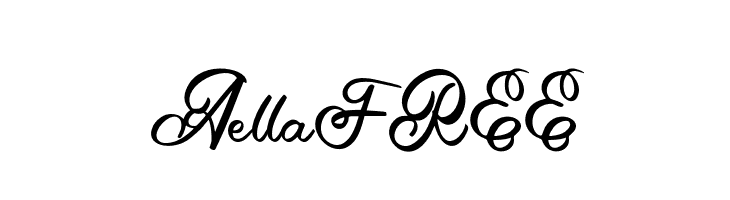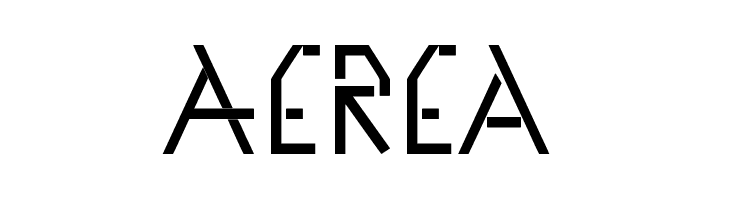
An elegant script font with flowing, interconnected letters and ornate uppercase characters.
An elegant script font with flowing, interconnected letters and a classic calligraphic style.
A bold, rounded, and playful italic font with a modern aesthetic.
A bold, rounded font with a strong and friendly appearance.
A bold, geometric font with a futuristic and technical design.
A fragmented, distressed font with a bold and chaotic design.
A bold, fragmented font with a chaotic and edgy style.
A modern, rounded sans-serif font with excellent readability.